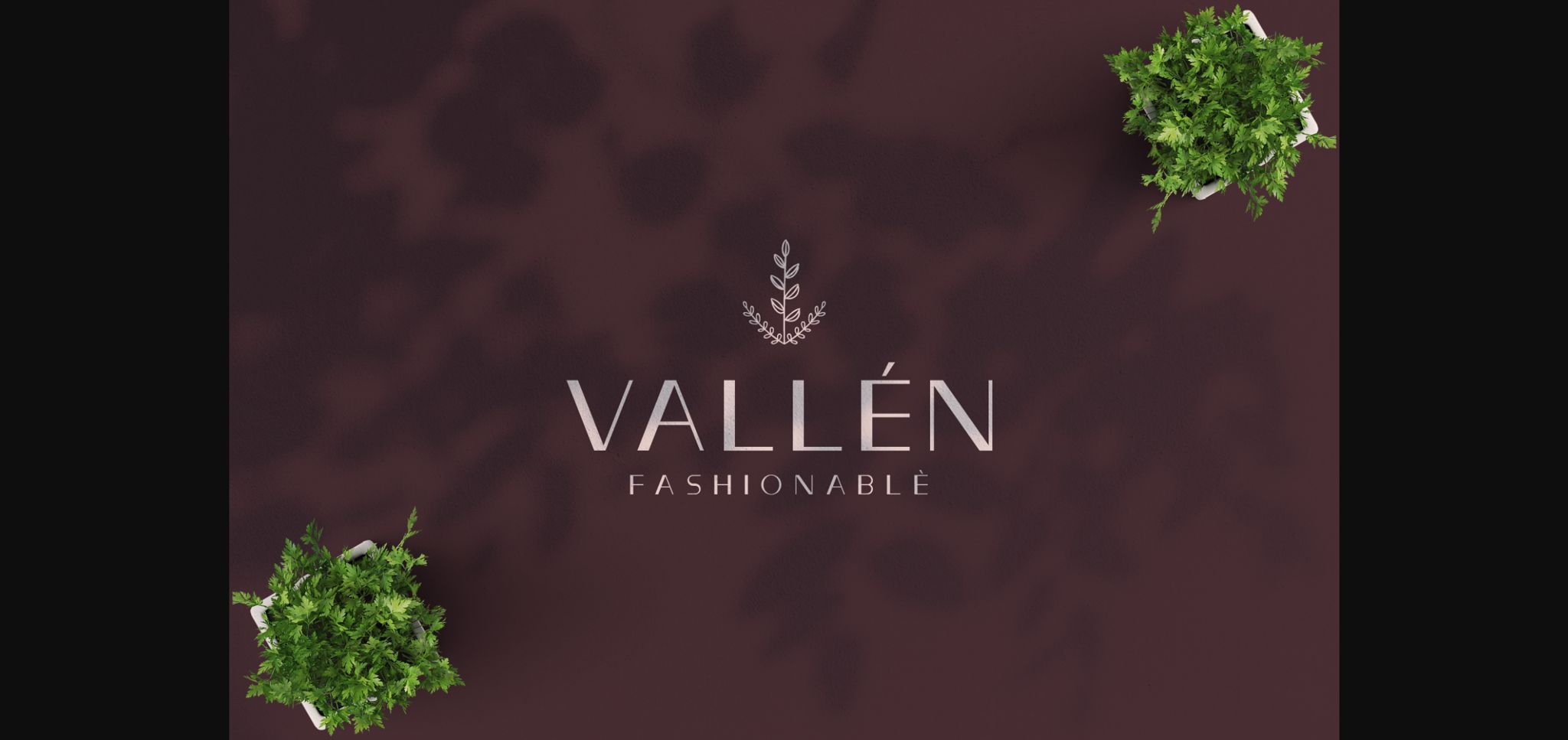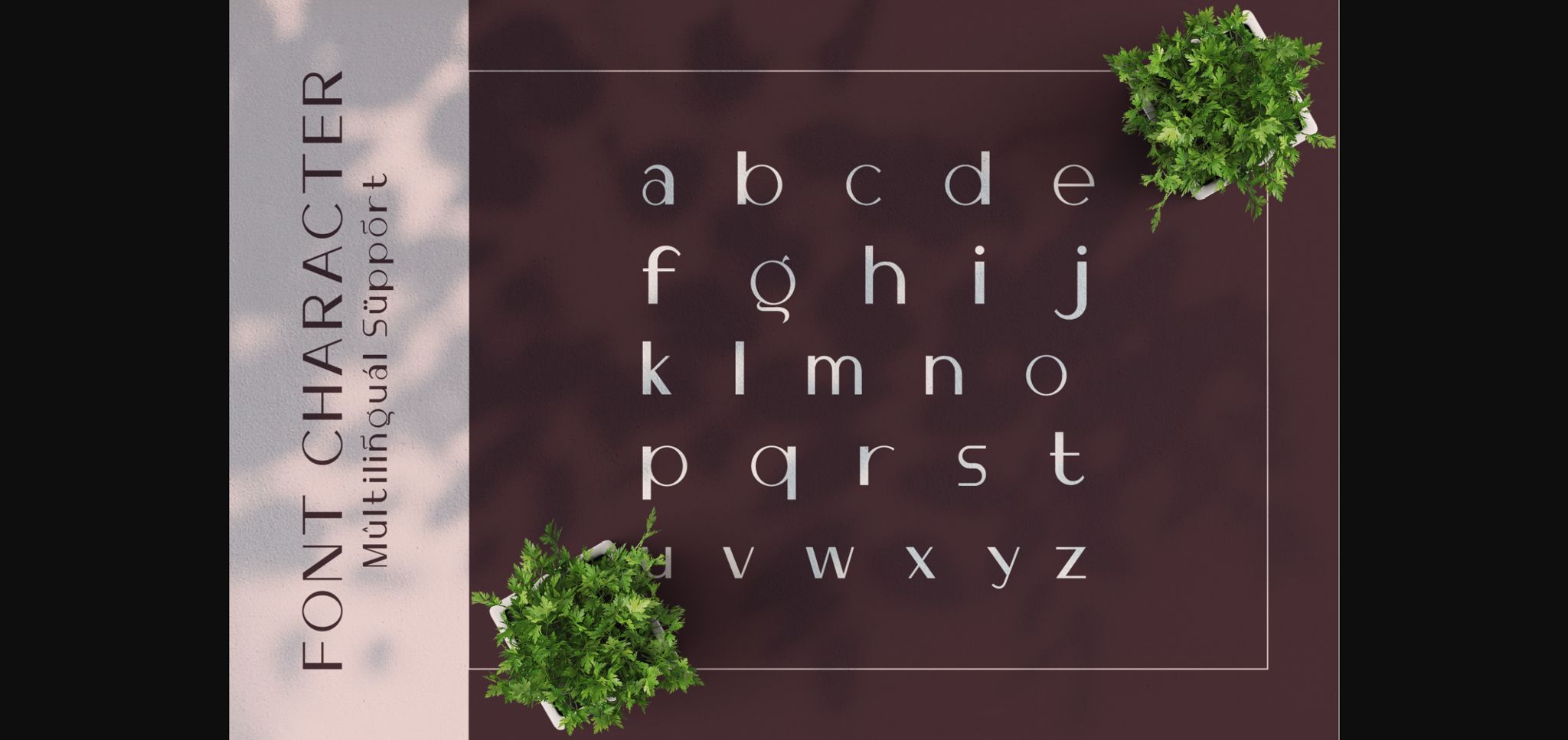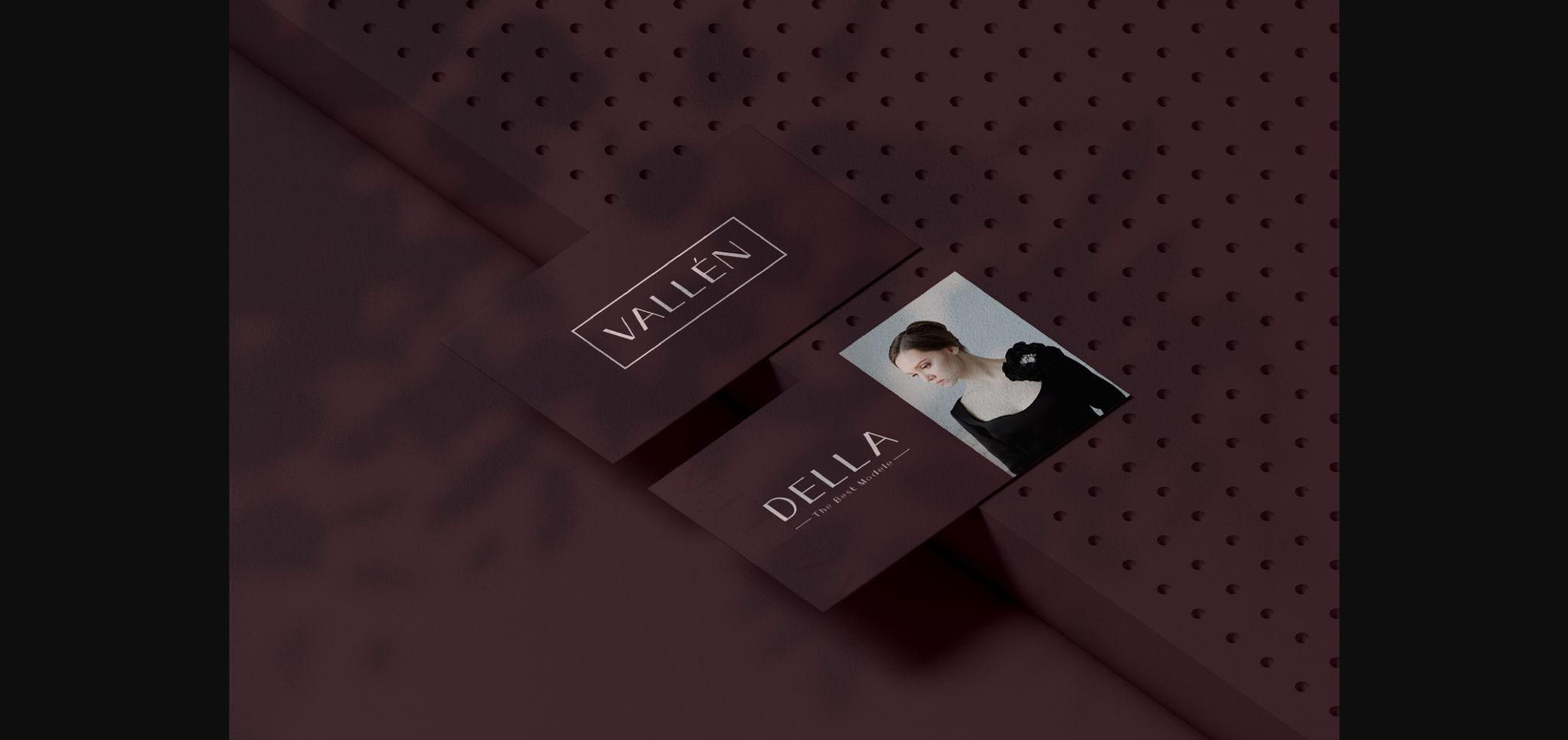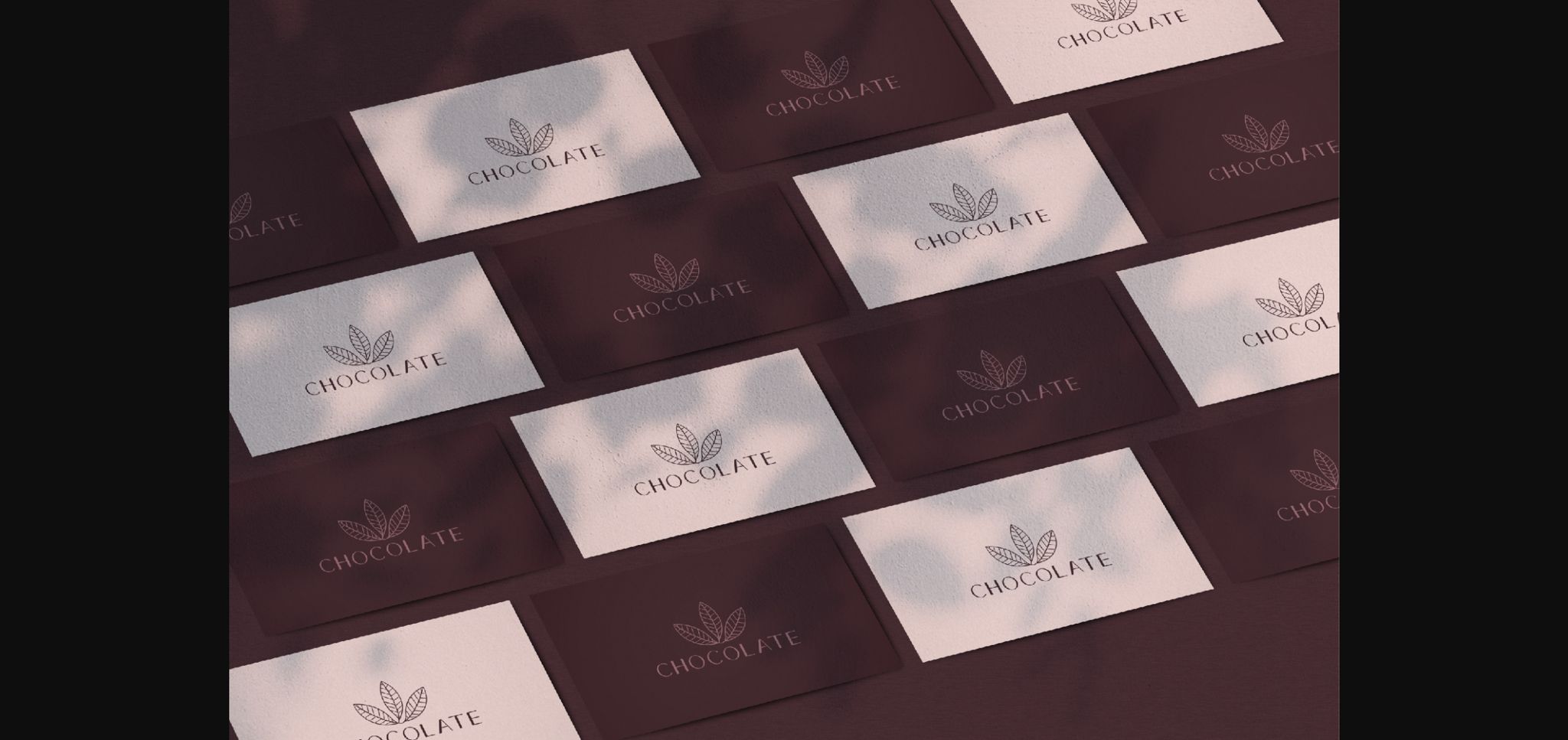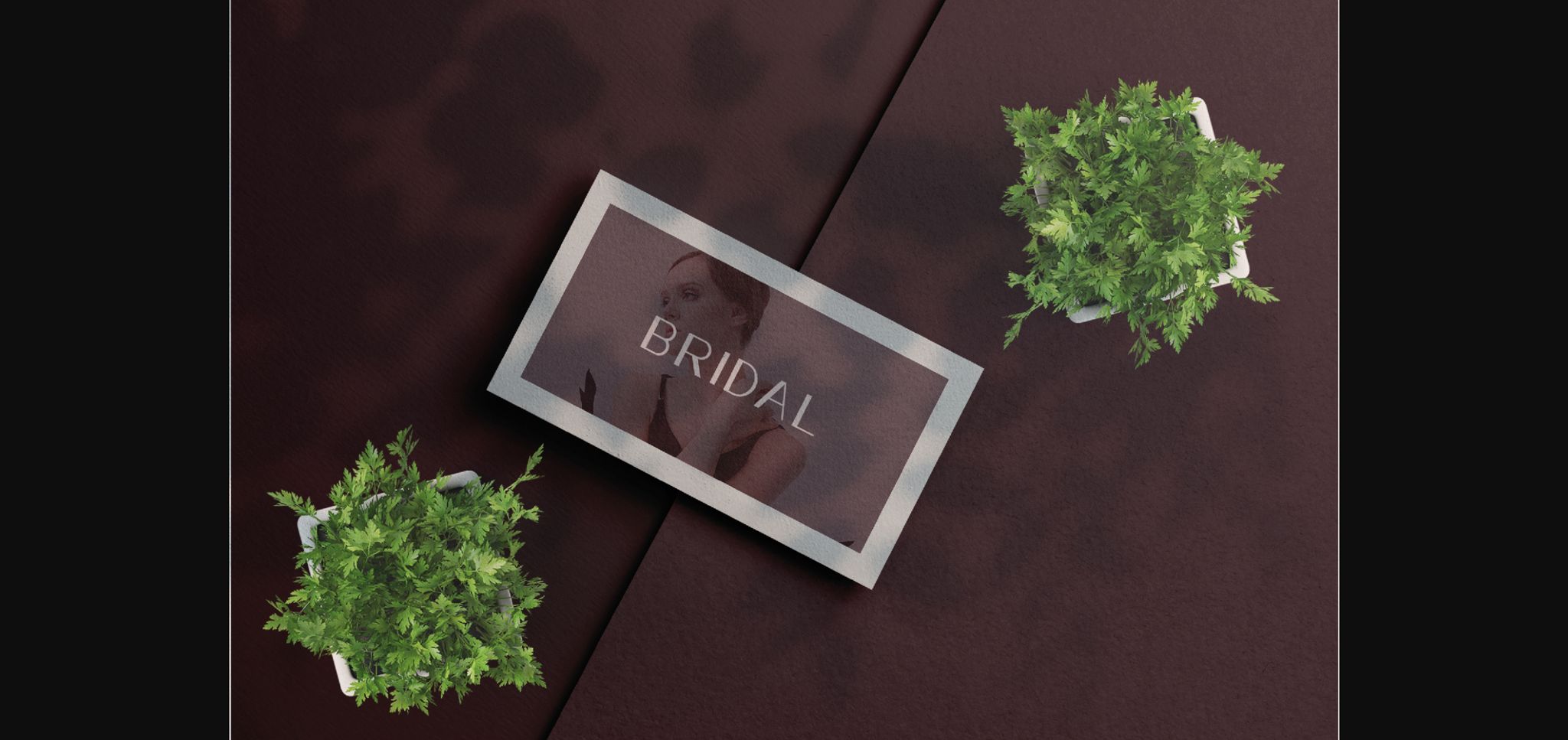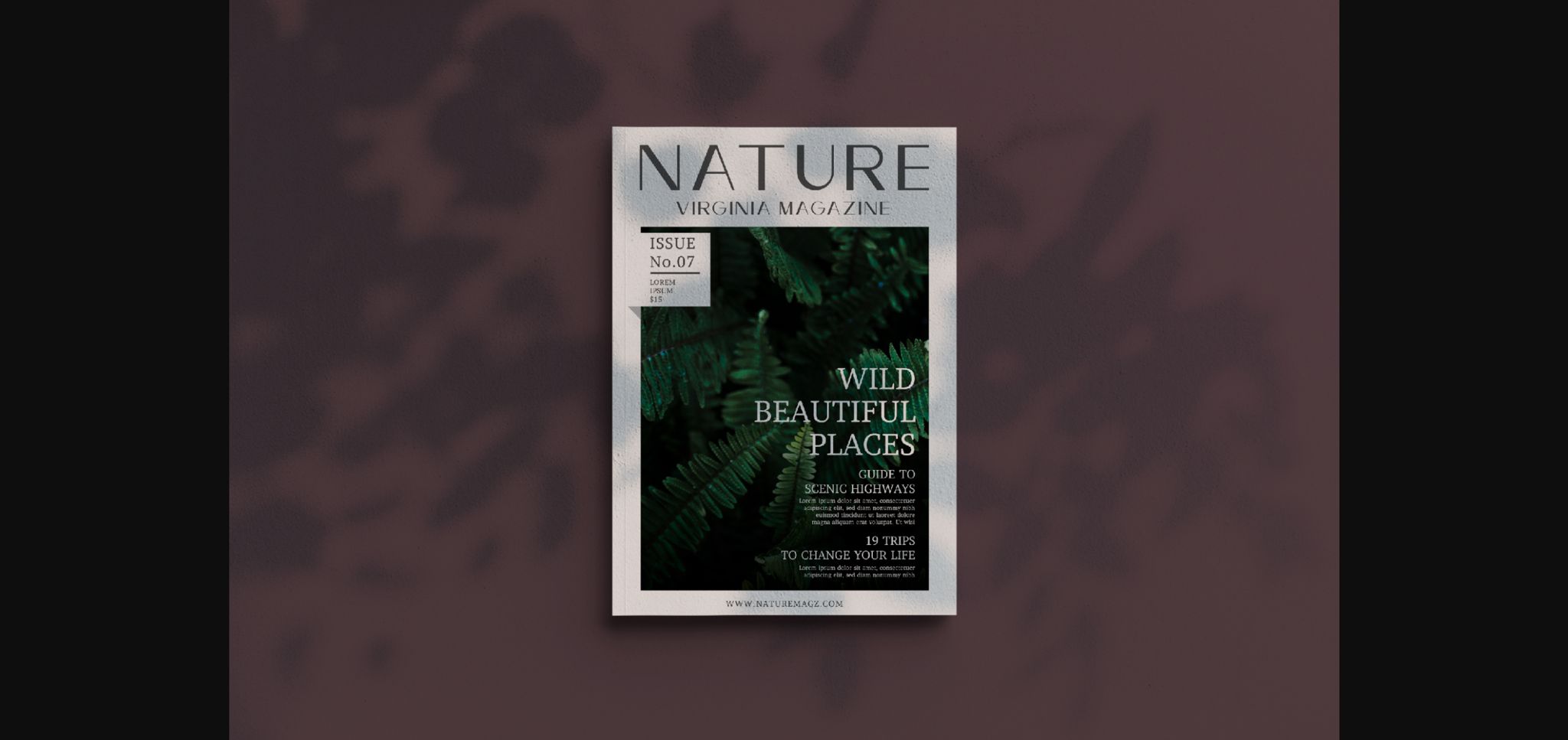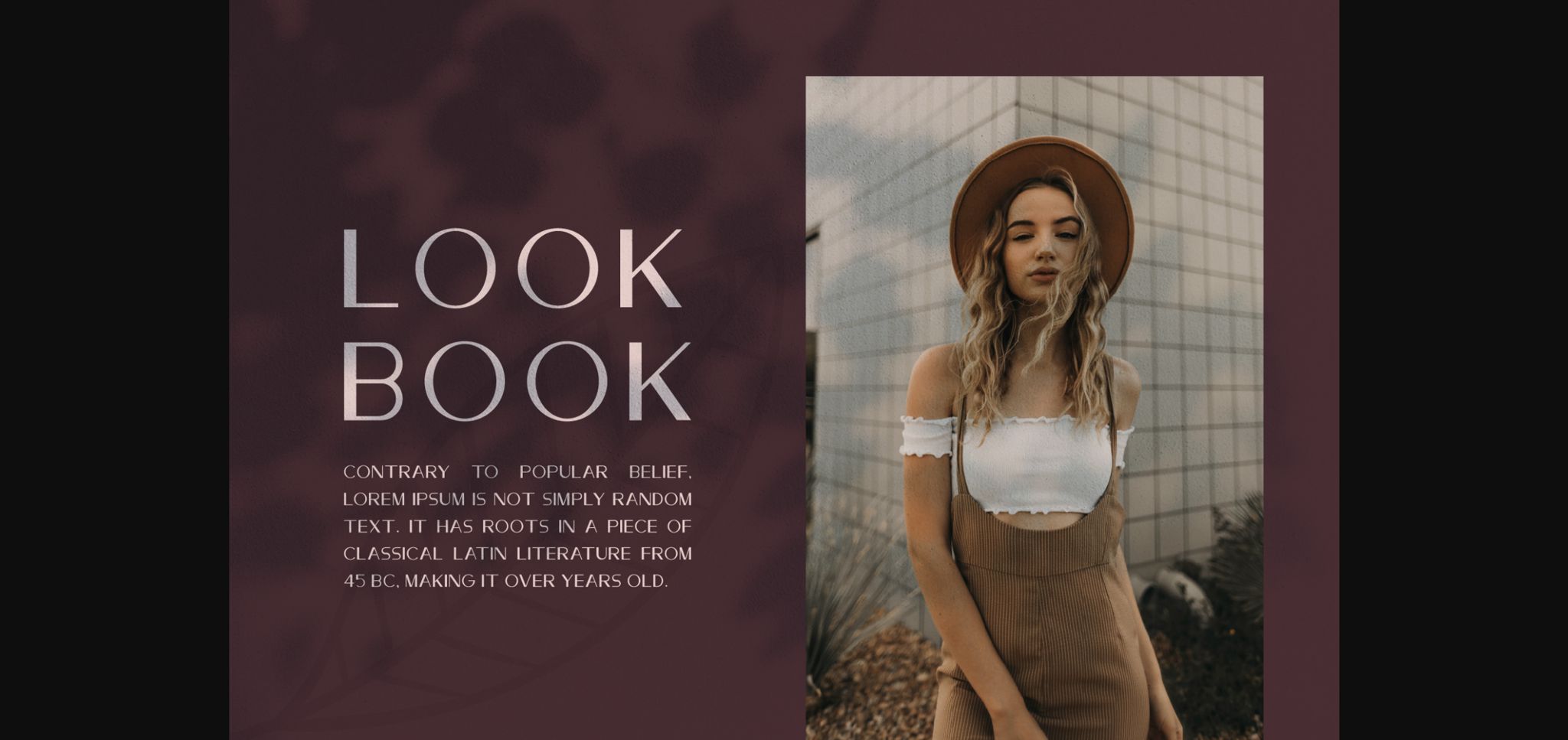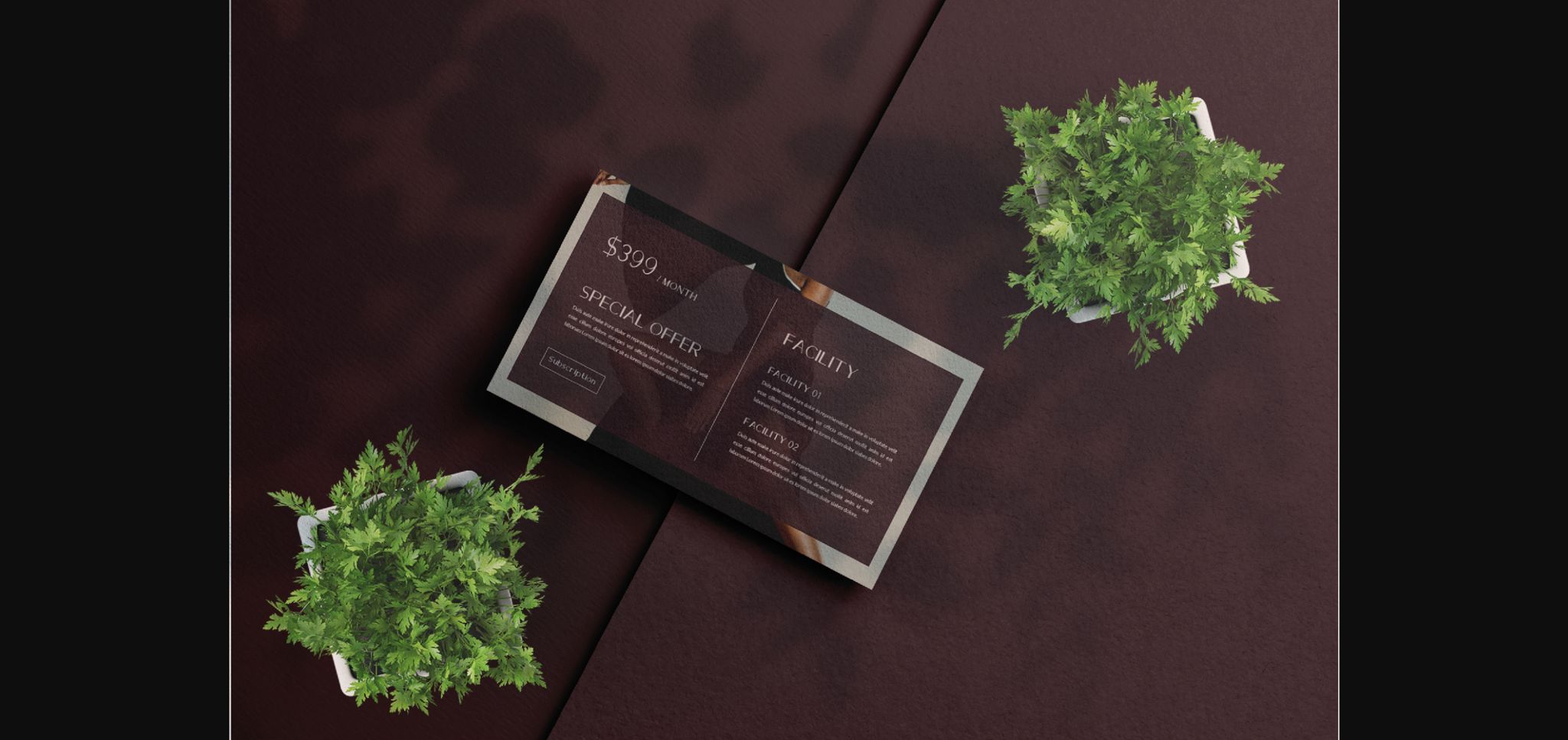
HomeSans Serif FontsVallèn Font Sans Serif Fonts Vallèn Font FacebookXPinterestWhatsApp 1 of 11 ... Vallèn Font Poster 2... Vallèn Font Poster 3... Vallèn Font Poster 4... Vallèn Font Poster 5... Vallèn Font Poster 6... Vallèn Font Poster 7... Vallèn Font Poster 8... Vallèn Font Poster 9... Vallèn Font Poster 10... Vallèn Font Poster 11... About Vallèn Font Vallèn is a minimalist yet incredibly elegant sans serif font. It matches a wide variety of designs, so add it to your most favorite ones, such as wedding invitations, letters (formal or informal), cards and so much more. DOWNLOAD NOW People also explored Watermelon Font Brooklyn Font Black Sting Font Plethora Font Lighten Up Font Katharine Font Weltschmerz Halowenly Font Angelynn Monogram 283 0 TagsVallènVallen Font Previous articleNova FontNext articleCalmius Font LEAVE A REPLY Cancel reply Comment: Please enter your comment! Name:* Please enter your name here Email:* You have entered an incorrect email address! Please enter your email address here Website: Save my name, email, and website in this browser for the next time I comment. Personal Use Free UseYourImagination Personal Use Free Read more about this font Cinderella Personal Use Free Read more about this font Allea Sweet Personal Use Free Read more about this font Bajt Rounded Personal Use Free Read more about this font BLOG Free Fonts Risk: Why Free Fonts Can Be Dangerous for Designers Free Fonts Risk: Why Free Fonts Can Be Dangerous for Designers Using free fonts is a common practice in web and graphic design. However, the... How to Cut Any Font on Cricut: Convert a Font to SVG (Free) 5 Fonts That Will Dominate Design Trends in 2026 Free vs Paid Fonts: Why Investing in Premium Fonts Is Worth It